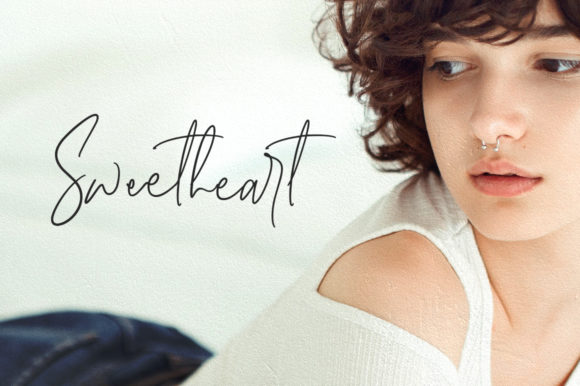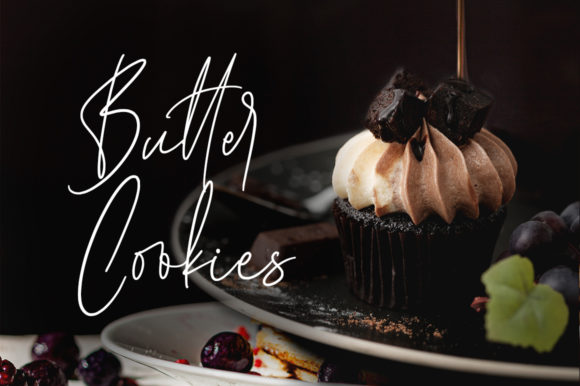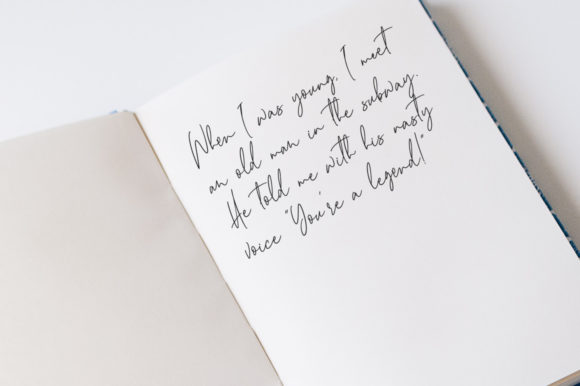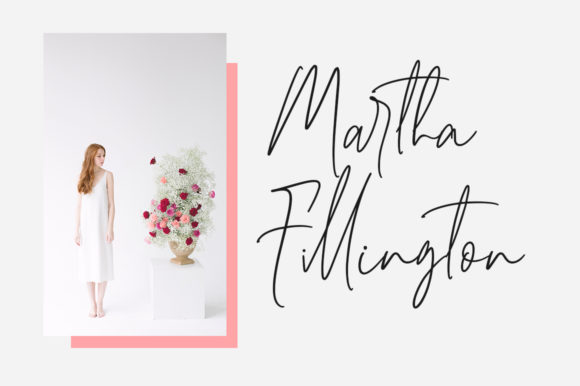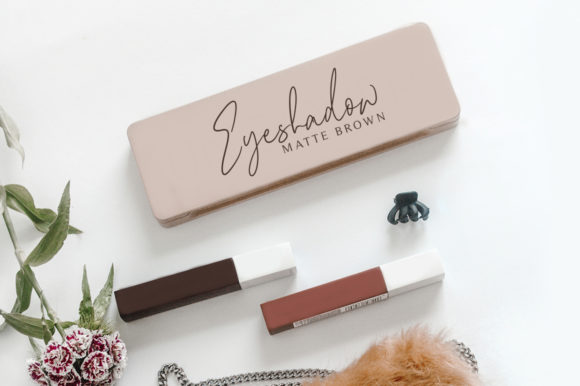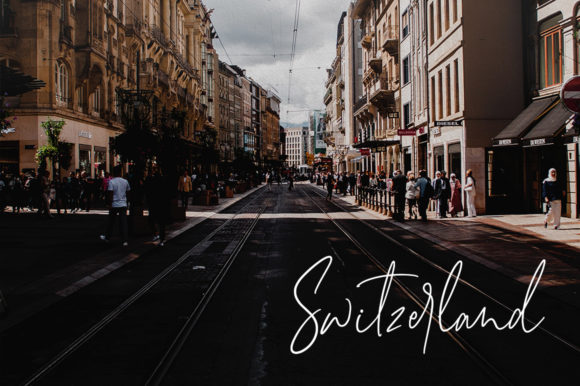
Introduction to Cherrydorry Font
Cherrydorry is a chic and elegant handwritten font with classy ligatures.
Key Features of Cherrydorry Font
Why Choose Cherrydorry Font?
Cherrydorry Font offers exceptional quality and versatility, making it a valuable addition to your design toolkit. Whether you’re creating for personal projects or commercial use, Cherrydorry Font delivers professional results.